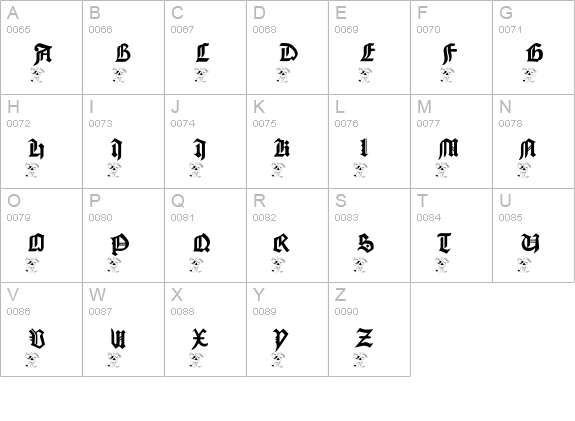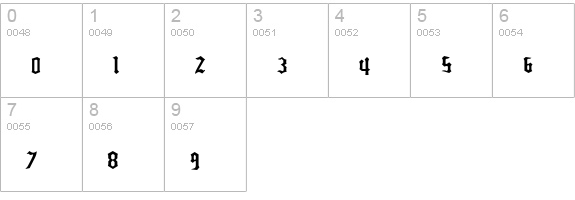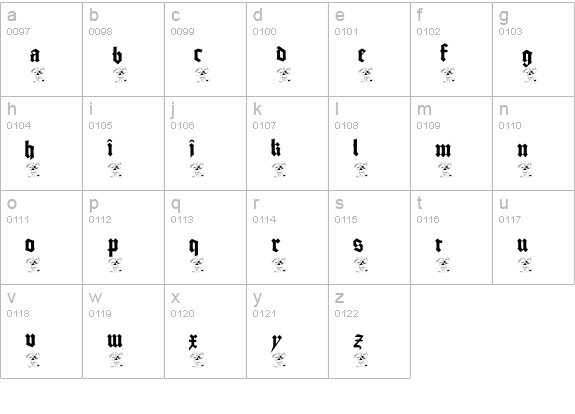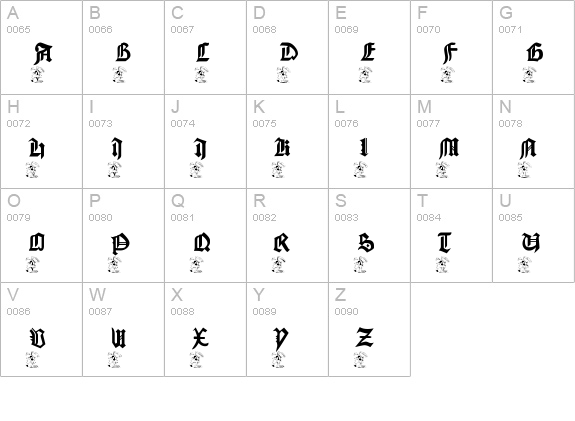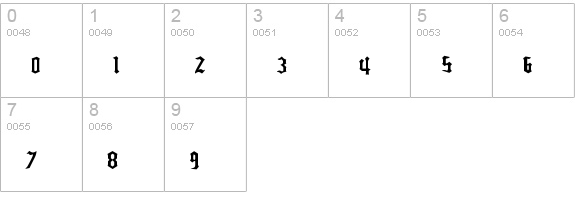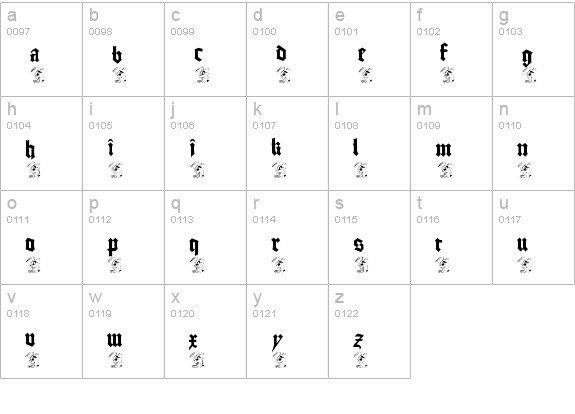
EasterBunny Font Details
EasterBunny font is a delightful and whimsical typeface that captures the essence of Easter joy and celebration. With its charming curves and playful letterforms, this font is perfect for adding a touch of enchantment to any project. Whether you're designing invitations, creating Easter-themed graphics, or simply adding some Easter cheer to your personal correspondence, EasterBunny font will bring a smile to your face. One of the best things about EasterBunny font is that it is free. Yes, you read that right. This captivating font is available to download at absolutely no cost from FontsMarket.com. The creators of EasterBunny font believe in spreading the joy of Easter and making it accessible to everyone. They want to ensure that this delightful font can be enjoyed by designers, artists, and enthusiasts alike, without any restrictions. Downloading EasterBunny font is a breeze. Simply visit FontsMarket.com, search for EasterBunny font, and click on the download button. In just a few seconds, you'll have this charming font ready to use in your projects. It is compatible with both Windows and Mac operating systems, making it accessible to a wide range of users. Once you have EasterBunny font installed on your computer, you'll be amazed at the endless possibilities it offers. The captivating curves and whimsical details of each letter will bring your designs to life, adding a touch of magic and wonder. Whether you're creating Easter-themed greeting cards, designing posters for an Easter egg hunt, or crafting a playful logo for an Easter event, EasterBunny font will deliver the perfect balance of charm and legibility. So why wait? Download EasterBunny font today and let your creativity soar. Whether you're a professional designer or someone who simply enjoys the beauty of typography, this font will become a valuable addition to your collection. Spread the joy of Easter with every letter you write and every design you create. And remember, it's all yours for free, courtesy of FontsMarket.com. Happy designing!